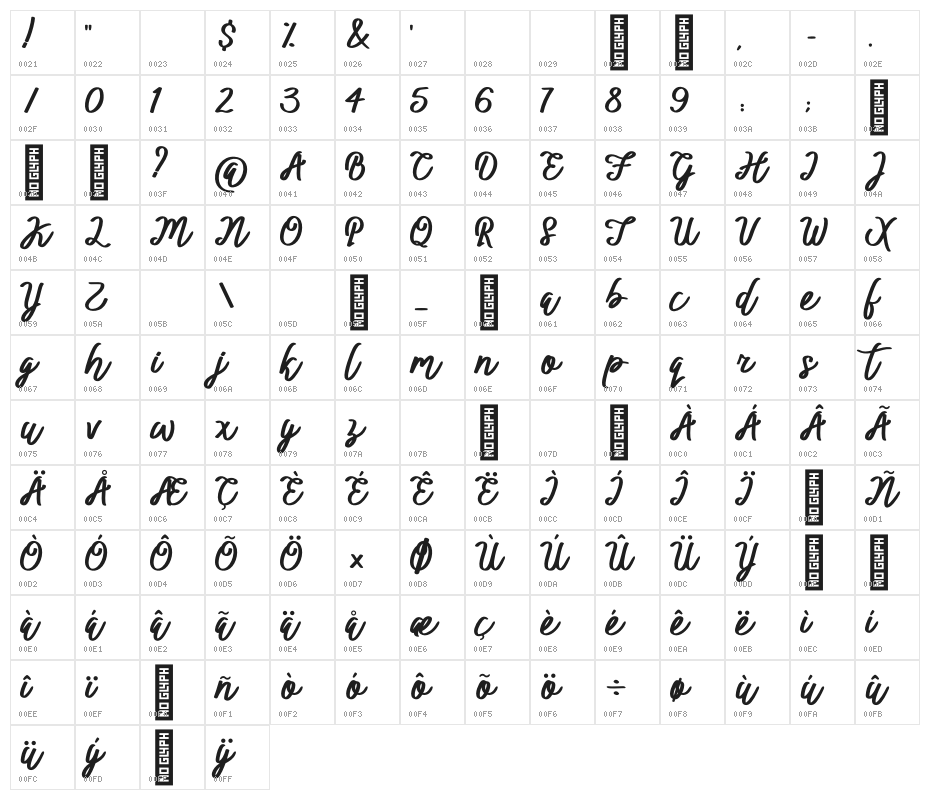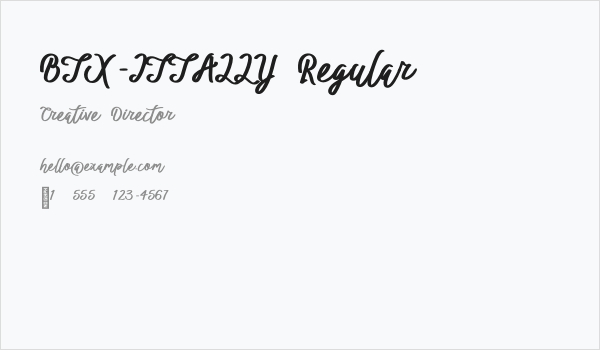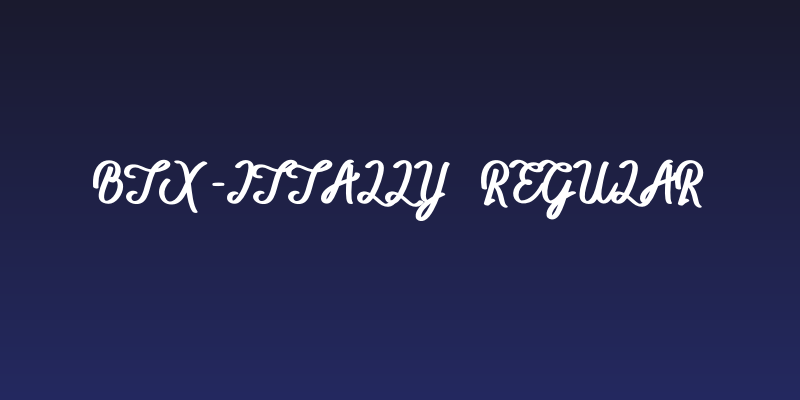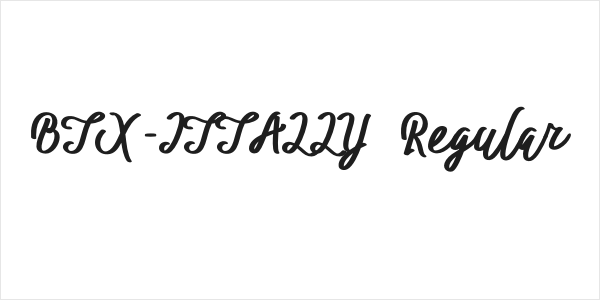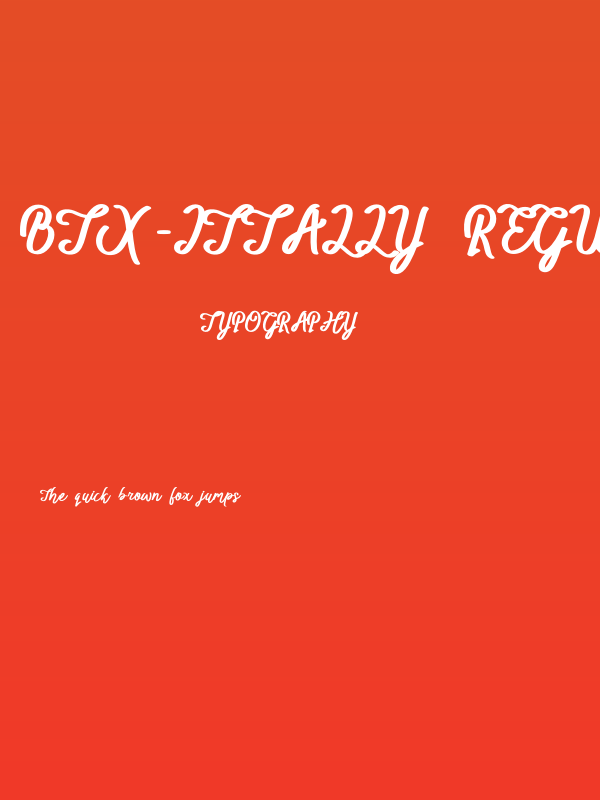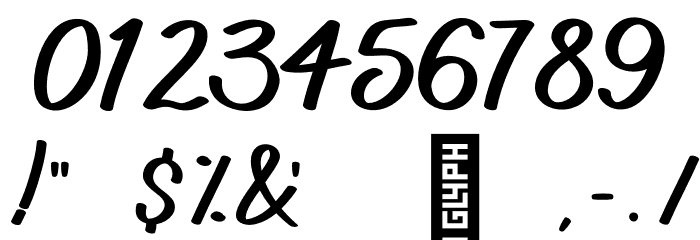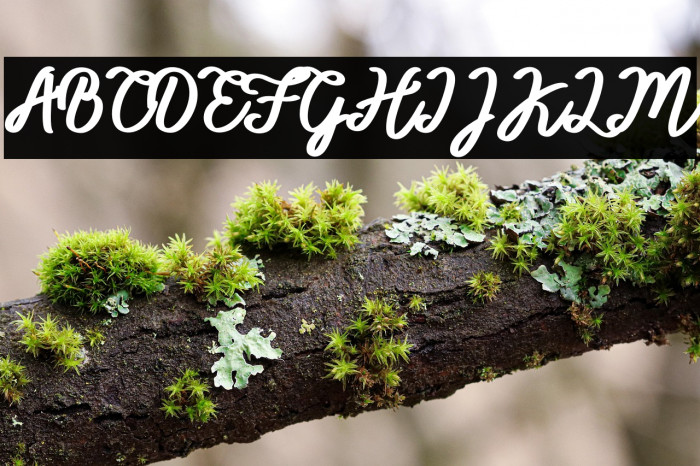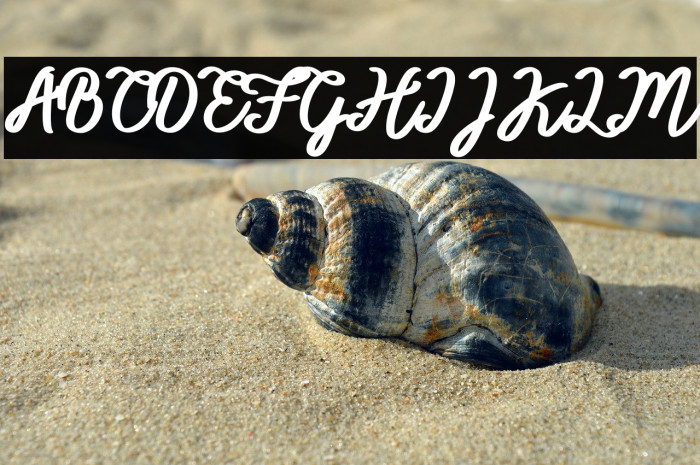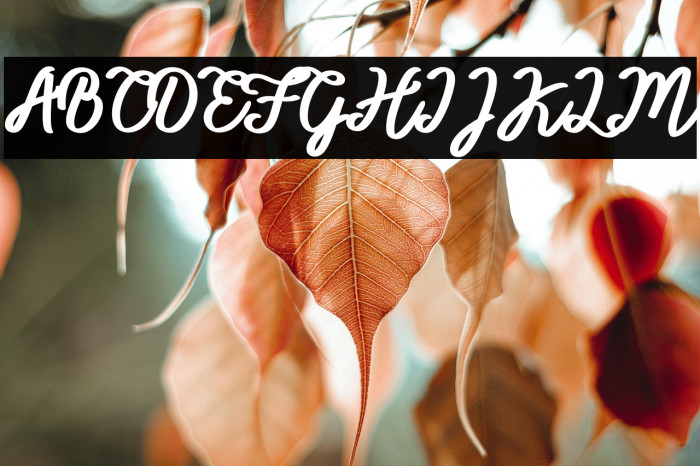
BTX-ITTALLY Regular Font
BTX-ITTALLY Regular Description
This font features a flowing, cursive style with smooth, connected strokes that give it a handwritten appearance. The uppercase letters are bold and dynamic, with elegant loops and swirls that add a sense of movement. The lowercase letters maintain a consistent flow, with rounded forms and a slight slant that enhances the script-like quality. Numbers are clear and maintain the same stylistic curves, ensuring readability while preserving the overall aesthetic. The special characters are designed to complement the letters, featuring similar curves and lines. This font exudes a sense of elegance and sophistication, making it ideal for projects that require a personal touch.